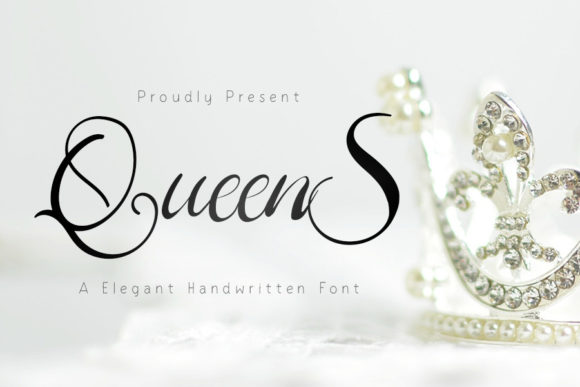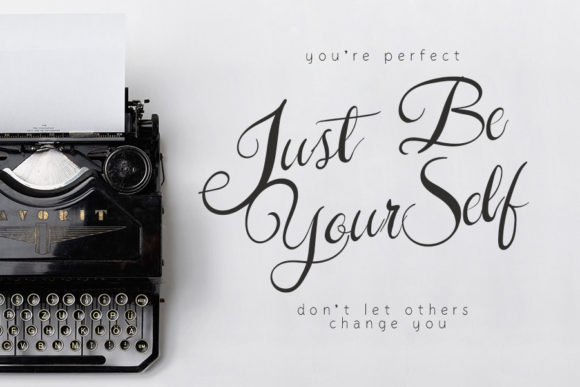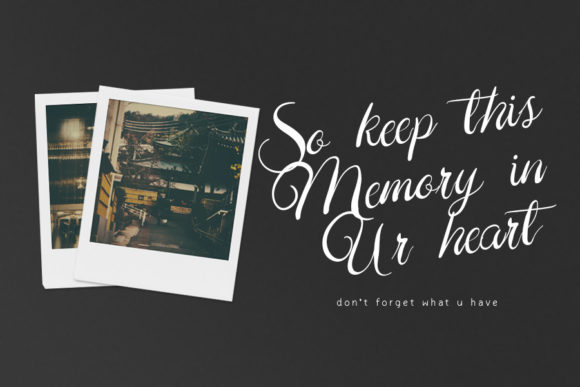
About QueenS Font
QueenS is a charming and luxurious handwriting font, that exudes elegance and class. This font was particularly crafted for those who need a beautiful and refreshing look to their designs.